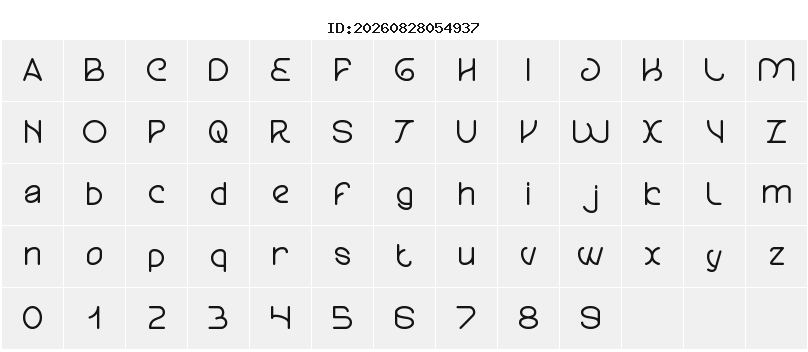
Trees Of Happiness Preview
• Font Name: Trees Of Happiness
• Full Font Name: Trees Of Happiness
• Version: Version 1.00 November 9, 2011, initial release
About Trees Of Happiness.ttf
Trees Of Happiness.ttf is a modern, elegant sans-serif font designed for ultimate readability and visual harmony. Perfect for branding, headlines, web design, and print materials.